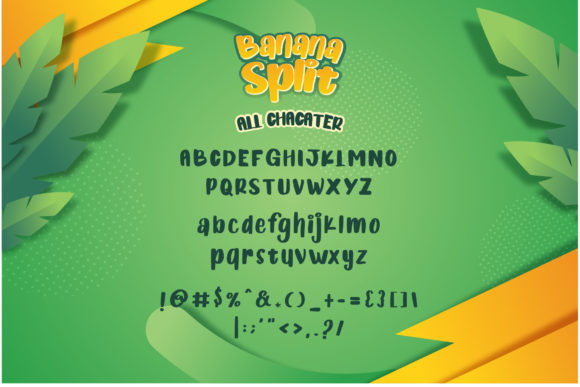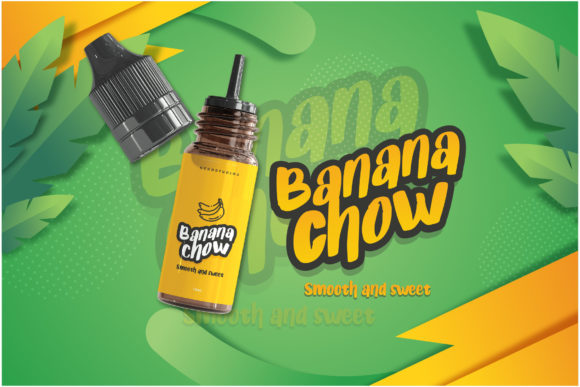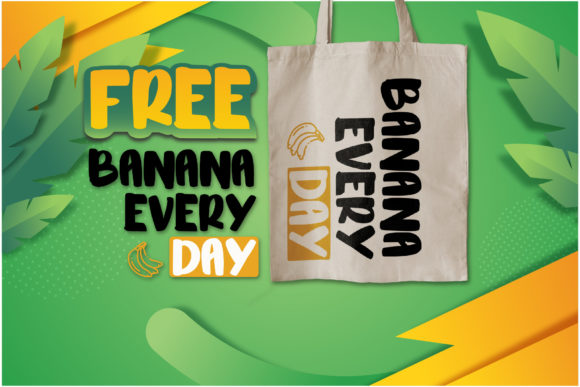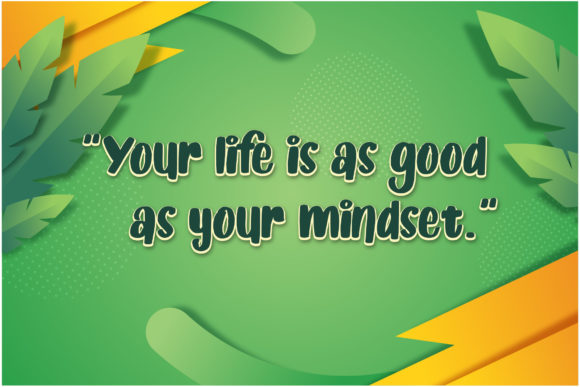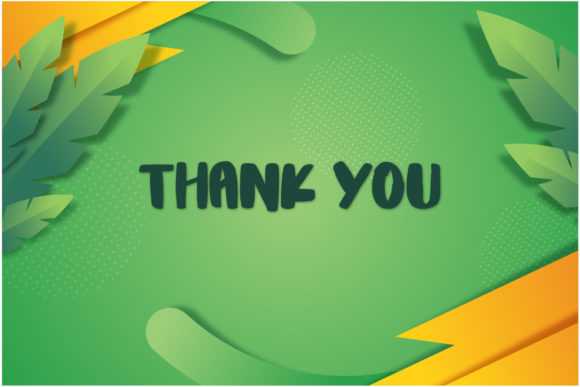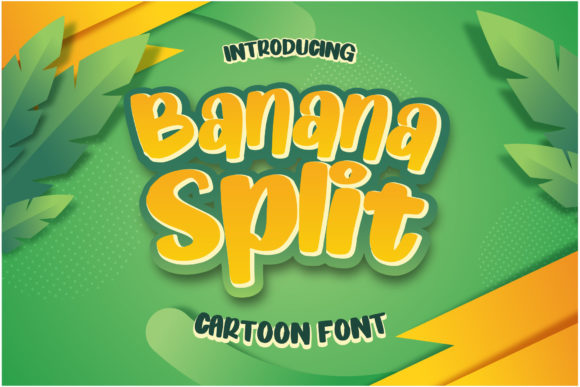
Introducing Banana Split Cartoon Font: The Perfect Addition to Your Fun and Playful Designs
Are you looking for a font that can add a touch of youth and joy to your designs? Look no further than the Banana Split Cartoon Font! This fun, friendly, and cartoon-like display font is perfect for party invitations, swimming gatherings, and any other design that requires a playful and lively feel.
What is Banana Split Cartoon Font?
Banana Split Cartoon Font is a unique and eye-catching font that is designed to bring a smile to your face. With its bold and colorful letters, this font is sure to grab attention and add a fun touch to any design. Whether you’re creating a party invitation, a flyer for a kids’ event, or a social media graphic, this font is sure to make your design stand out.
Key Features of Banana Split Cartoon Font
• Fun and playful design: The Banana Split Cartoon Font features a fun and playful design that is perfect for adding a touch of youth and joy to your designs.
• Cartoon-like style: The font has a cartoon-like style that is reminiscent of childhood favorites, making it perfect for designs that require a nostalgic feel.
• Bold and colorful letters: The font features bold and colorful letters that are sure to grab attention and add a pop of color to your designs.
• Easy to read: Despite its playful design, the Banana Split Cartoon Font is easy to read, making it perfect for use in a variety of designs.
Uses for Banana Split Cartoon Font
The Banana Split Cartoon Font is a versatile font that can be used in a variety of designs, including:
• Party invitations: Add a fun and playful touch to your party invitations with the Banana Split Cartoon Font.
• Swimming gatherings: Create eye-catching flyers and posters for swimming gatherings and events with this font.
• Kids’ events: The font is perfect for designing materials for kids’ events, such as birthday parties, carnivals, and more.
• Social media graphics: Add a touch of fun and playfulness to your social media graphics with the Banana Split Cartoon Font.
• Crafting projects: The font is also perfect for use in crafting projects, such as scrapbooking, card making, and more.
Why Designers and Crafters Love Banana Split Cartoon Font
Designers and crafters love the Banana Split Cartoon Font for a variety of reasons, including:
• Its unique and eye-catching design: The font’s unique and eye-catching design makes it a great addition to any design.
• Its versatility: The font can be used in a variety of designs, from party invitations to social media graphics.
• Its ease of use: The font is easy to read and use, making it perfect for designers and crafters of all skill levels.
Tips for Using Banana Split Cartoon Font
Here are a few tips for using the Banana Split Cartoon Font in your designs:
• Use it sparingly: While the font is fun and playful, it can be overwhelming if used too much. Use it sparingly to add a touch of whimsy to your designs.
• Pair it with other fonts: The Banana Split Cartoon Font pairs well with other fonts, such as sans serif fonts and script fonts.
• Experiment with colors: The font looks great in a variety of colors, so don’t be afraid to experiment and find the perfect color for your design.
The Banana Split Cartoon Font is a fun, friendly, and cartoon-like display font that is perfect for adding a touch of youth and joy to your designs. With its bold and colorful letters, this font is sure to grab attention and make your design stand out. Whether you’re a designer or crafter, this font is a great addition to your toolkit.